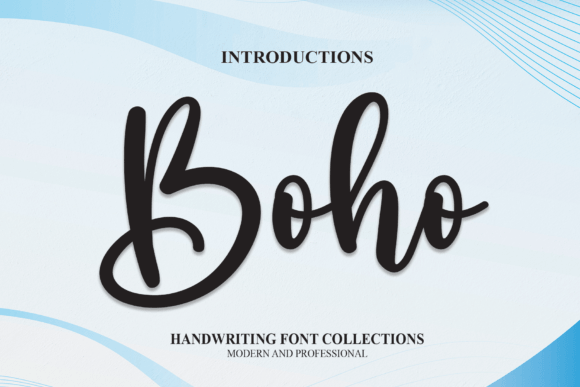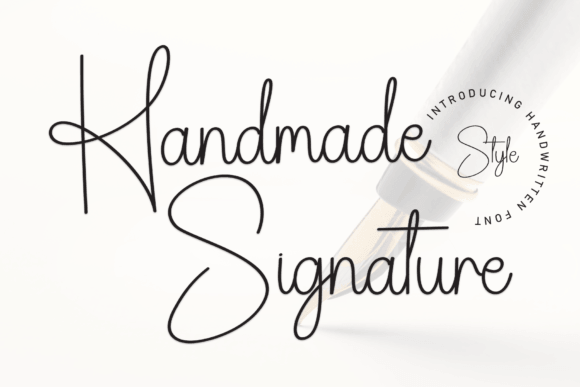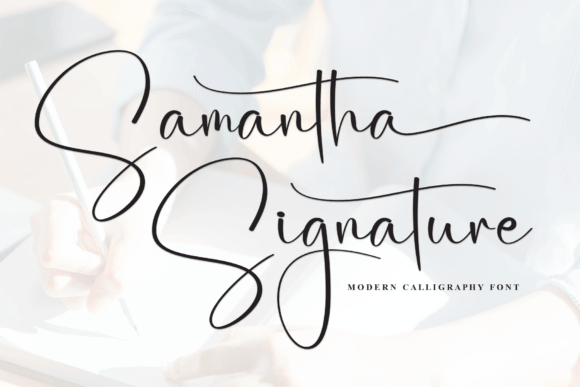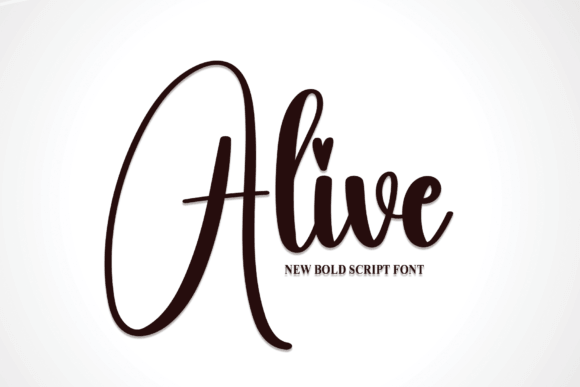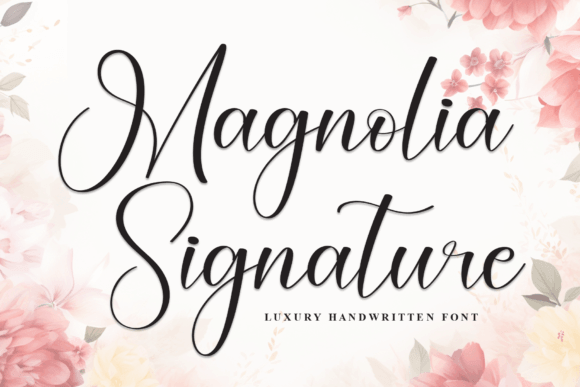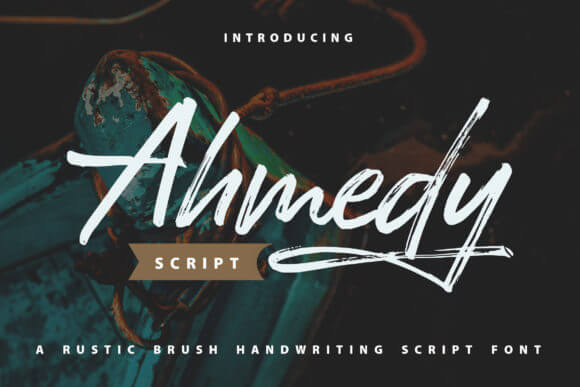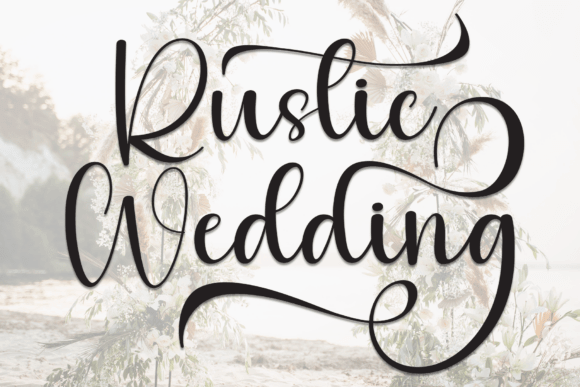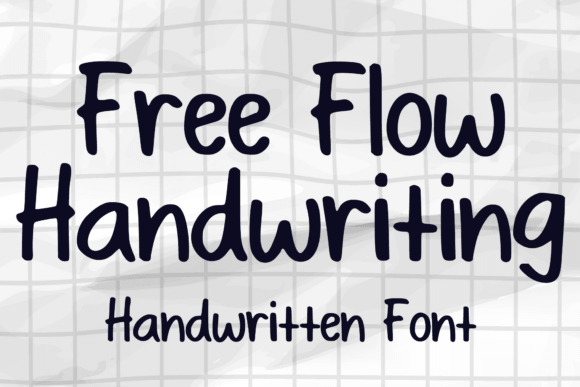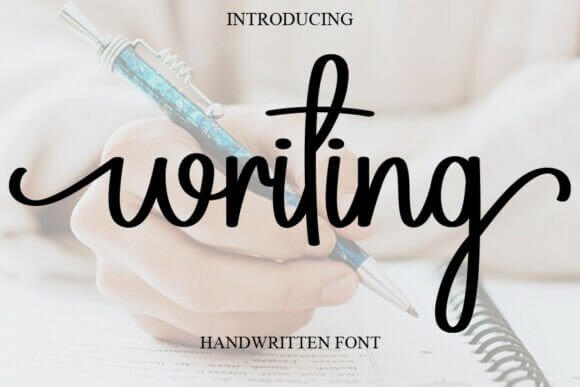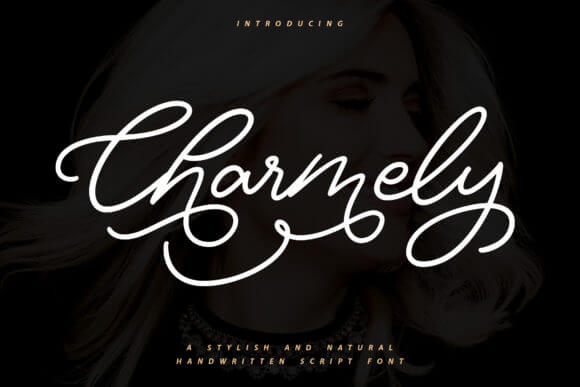
At Increobox, we keep seeing the same thing: a decent layout turns magnetic the second the right handwriting fonts show up. People judge mood before they read a word, and a loose cursive, a sharp signature style, or a textured brush script can push a brand from fine to saved-and-shared in seconds. We pulled 18 options that cover logo design, wedding invitations, packaging, menus, planner pages, and social visuals without drifting into fake-pretty fluff.
Some styles feel airy, some feel luxe, some look like they came straight off a coffee-stained notebook. That contrast matters a lot. A polished handwritten font can clean up a beauty label, while a raw script can give craft products and event pieces real pulse, not template energy. If you need handwriting fonts aesthetic enough for modern branding, calligraphy-inspired layouts, and quick creative work, this list gets right to the good stuff.
Boho Handwriting Font For Earthy Branding
Boho feels relaxed without looking sloppy, and that balance is rare. We’d use it for earthy packaging, candle labels, or boho branding that needs softness with a bit of grit. The strokes keep moving, so even plain layouts stay alive, and honestly, beige palettes need that kind of help.
Best Projects For This Font
- Candle Label Design – Adds warmth to jars, wraps, and gift sets.
- Wellness Product Packaging – Fits soaps, oils, bath salts, and slow-living brands.
- Boutique Shop Logos – Builds a grounded identity with handmade charm.
- Seasonal Market Signage – Works nicely on tags, boards, and small display cards.
Handmade Signature Font For Clean Identity Design
Handmade Signature looks tighter and cleaner, which helps when you want personality without the messy side effects. We think it works best in signature logos, photographer watermarks, and polished service brands where a casual script would wobble too much. You still need to test small sizes, but the vibe stays refined, not fussy.
Where This Style Fits
- Photographer Watermarks – Keeps images branded without stealing focus.
- Creative Resume Headers – Adds polish to portfolios and CV covers.
- Service Brand Signatures – Suits coaches, stylists, and consultants.
- Luxury Email Footers – Makes simple digital touchpoints feel more personal.
Samantha Signature Font For Luxe Personal Branding
Samantha Signature brings a softer luxury feel. It suits beauty branding, elegant stationery, and personal brand identities that want grace without screaming old-school calligraphy. The curves feel smooth, so it pairs beautifully with crisp serif text and lots of clean space. We’d let this one breathe.
Smart Uses For This Script
- Bridal Beauty Branding – Creates a soft, elevated salon or makeup look.
- Coaching Website Headers – Adds warmth to expert-led personal brands.
- Gift Box Sleeves – Turns simple packaging into something memorable.
- Monogram Welcome Cards – Feels elegant on premium inserts and notes.
Alive Handwriting Font With Casual Brush Energy
Alive looks loose and bright, like quick marker lettering done on a very good day. For social media graphics, quote cards, and youth-facing brands, it adds motion fast and keeps the page from feeling stiff. It is not shy, and that is the whole point. Use it big and let it punch.
Design Jobs It Can Handle
- Quote Post Covers – Gives short messages more rhythm and force.
- Youth Event Flyers – Feels current without trying too hard.
- Playlist Artwork – Adds bounce to music and mood visuals.
- Streetwear Promo Banners – Works for punchy drops and launch posts.
Magnolia Signature Font For Feminine Logo Design
Magnolia Signature feels light, feminine, and a little dressy without turning syrupy. We’d drop it into beauty logo concepts, packaging sleeves, or thank-you cards when a brand needs grace more than drama. The fluid letterforms make even simple monochrome layouts feel expensive. That trick never gets old.
Places This Font Shines
- Skincare Jar Labels – Softens clean packaging with a premium feel.
- Boutique Thank-You Cards – Leaves a gentler, more personal impression.
- Feminine Website Mastheads – Works well with airy, minimalist layouts.
- Salon Voucher Design – Adds style to promotions without clutter.
Ahmedy Rustic Brush Script For Bold Packaging
Ahmedy Rustic Brush Script carries texture, so it injects edge into plain layouts right away. We like it for rustic packaging, coffee bags, posters, and craft branding where neat signature fonts feel way too precious. The brush feel does the heavy lifting, which helps a lot when your palette stays simple.
Good Matches For This Look
- Craft Coffee Bags – Gives product shelves a more handmade story.
- Farmers Market Posters – Feels bold enough for fast local promotion.
- Artisan Soap Wraps – Adds grit to natural and organic products.